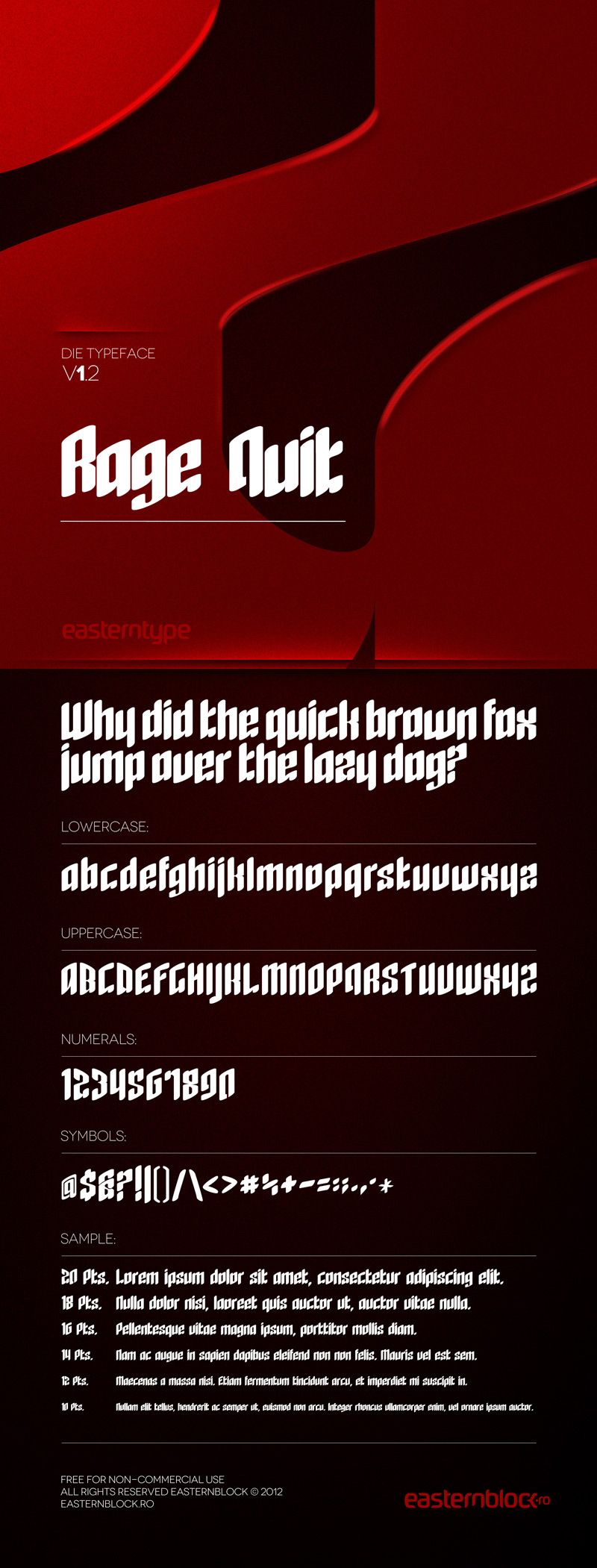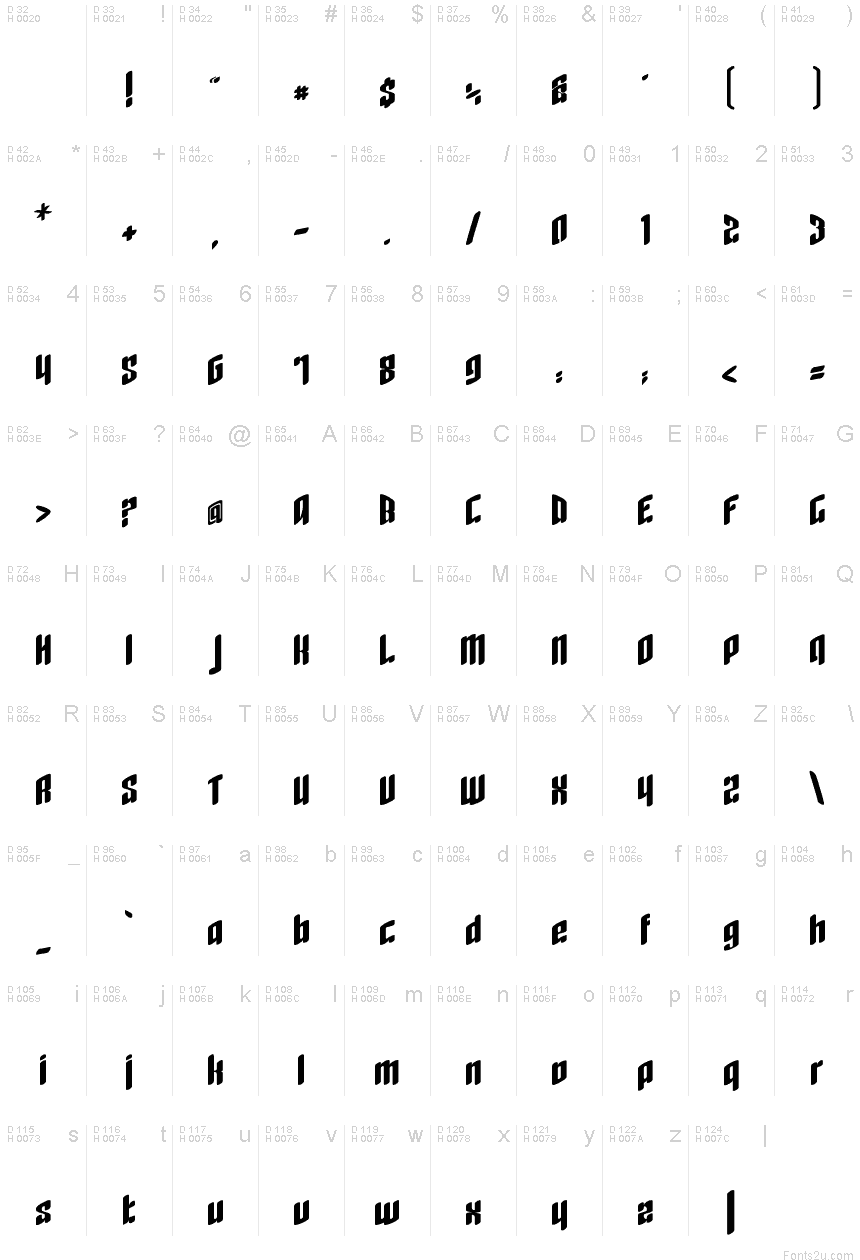
RageQuit Bold Easternblock is a free graffiti display font with tall, forceful letters and a distinctly angular cut. Broad black strokes pinch into sharp wedges, and the irregular widths give the lettering a compressed, restless pace.
Posters are its strongest medium, especially for underground music, streetwear launches, and action-game promotion. The steep cuts and tightly packed shapes turn a title into something closer to a painted tag or custom emblem. On merchandise, those pointed forms can echo lightning, shards, or hard-edged character art, letting the lettering become part of the illustration.
RageQuit is in its third version and includes uppercase letters, numerals, basic punctuation, and symbols. The artwork has also been updated.